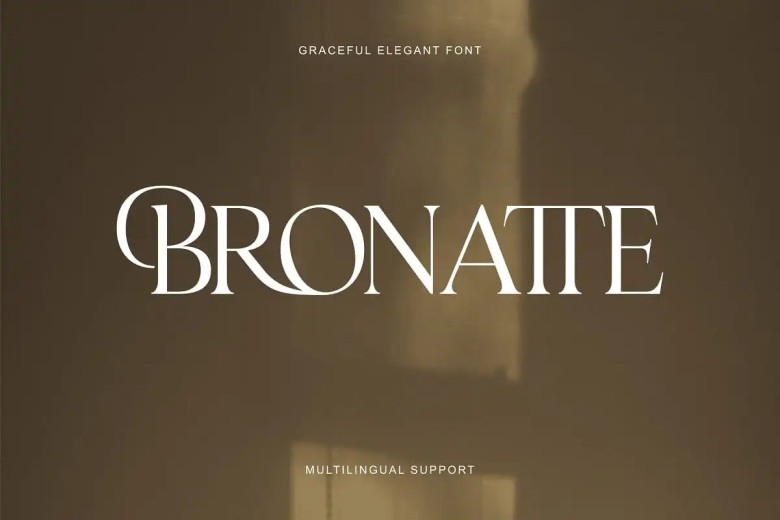
Bronatte Font
Bronatte is a typeface that is both simple and elegant. Whether you’re designing logos, wedding invitations or branding materials of any kind, Brunette has the necessary sophistication. Don’t forget this font is PUA encoded, meaning you can access all brilliant glyphs and swashes effortlessly.
Bronatte Modern Serif Font